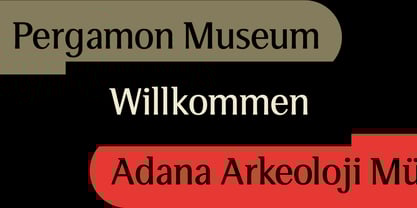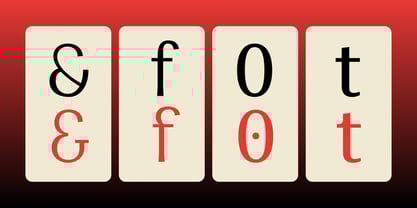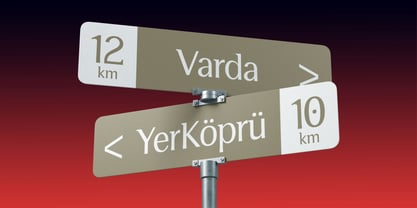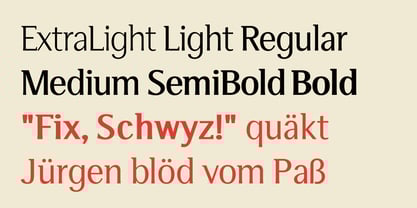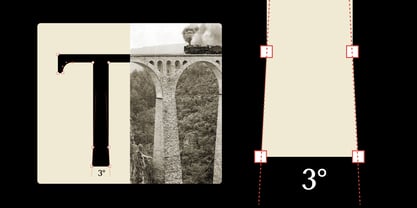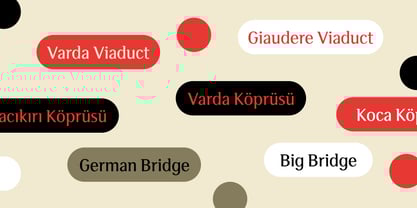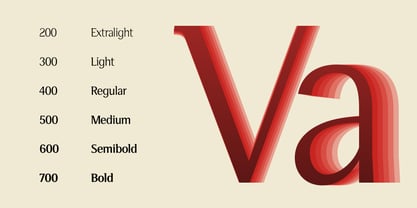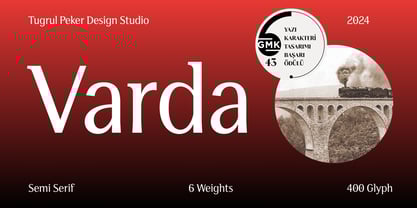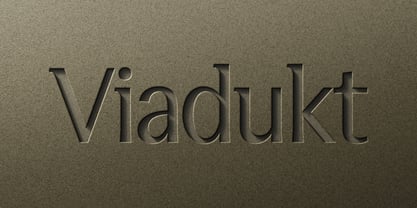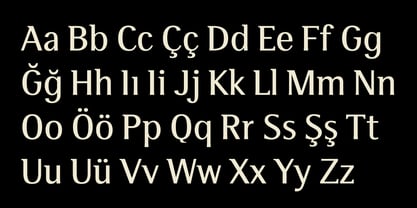
Varda Semi Serif
by Tugrul Peker
The Varda Semi Serif Font Family was designed by Tugrul Peker and published by Tugrul Peker. Varda Semi Serif contains 6 styles and family package options. More about this family
Varda Semi Serif takes its name from the Varda Bridge built by the German engineers as part of the Baghdad Railway (Haydarpaşa Terminal, Istanbul-Baghdad) in 1912.
It was also initially inspired by Otl Aicher's Rotis Semi Serif. In this context, the typeface was designed as an intermediate Semi Serif. The contrasting expansions on the legs, like the piers of the bridge, form the main element of the design.
Its primary design purpose is display uses such as museum and street wayfindings and exhibitions wall graphics.